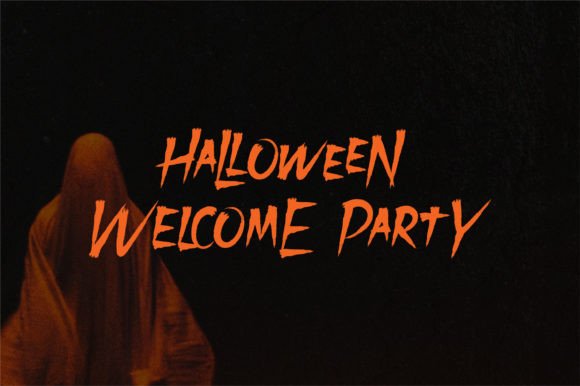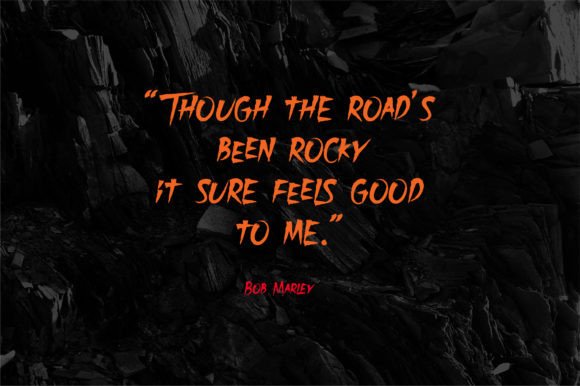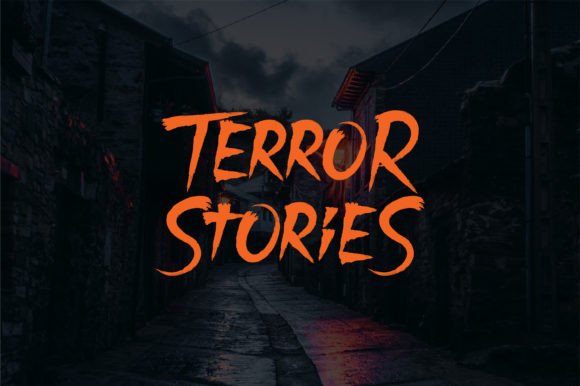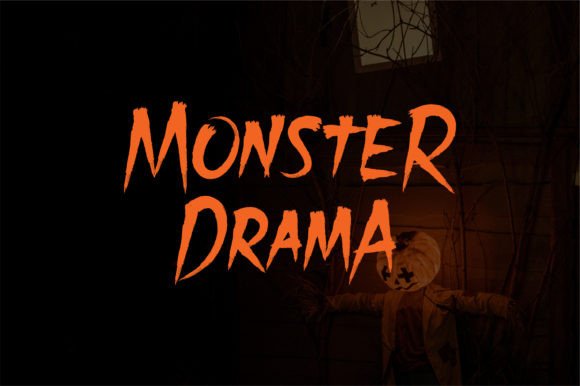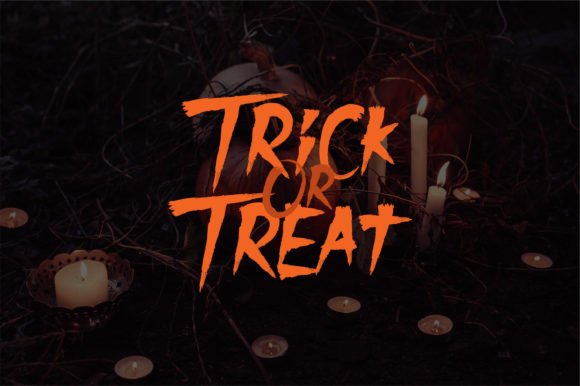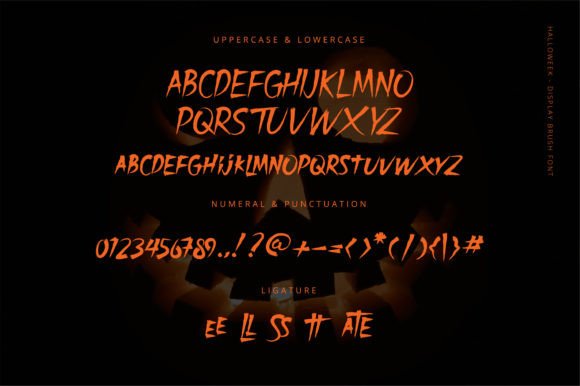
Introduction to Halloweek Font
Have you ever found yourself in the middle of a creative project, staring blankly at a blank canvas, waiting for the perfect design element to strike? That’s exactly where I was when I discovered the Halloweek Font – a game-changing brush display font that instantly elevates any design to the next level.
With its grunge, unique, and spooky vibe, the Halloweek Font is a design resource that’s sure to add an edge to your creative project. Whether you’re working on a poster, stationery, or even a website header, this high-quality font is perfectly suited for a wide variety of projects, from branding and packaging design to magazine covers and clothing.
Key Features of Halloweek Font
- Unique Gothic-inspired design with a modern twist, ideal for creative projects and Halloween-themed designs.
- Includes 6 high-quality fonts in various weights and styles, perfect for adding a spooky touch to your design resource.
- Great for creating invitations, posters, and other design elements for Halloween-themed events and parties.
Honest Review: Halloweek Font
I recently stumbled upon the Halloweek Font, and I must say it’s been a great addition to my design resource library. The font is perfect for creative projects, especially those that involve spooky or Halloween-themed elements. One of the standout features of this font is its versatility, making it suitable for a wide range of applications, from posters to social media graphics.
However, there are a few limitations to consider: ⚠️ Limited character set, ⚠️ No support for complex layouts, and ⚠️ Some compatibility issues with older software versions. These limitations may not be a deal-breaker for everyone, but it’s essential to be aware of them before using the font for a critical project.
Overall, I’m impressed with the Halloweek Font. It’s a great design resource that can elevate your creative project and add a touch of spooky charm. With its high-quality design and transparent background options, it’s definitely worth checking out.
- Perfect for Halloween-themed projects
The Halloweek Font is commonly used for Halloween-themed designs, such as invitations, posters, and social media graphics. It’s also a popular choice for designers looking for a unique and creative font to add to their project. With its high-quality design and free download option, the Halloweek Font is a valuable resource for any designer.